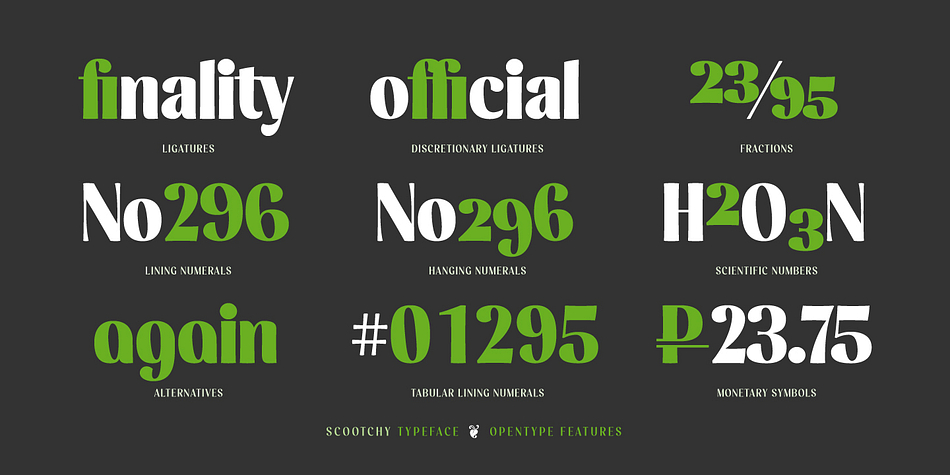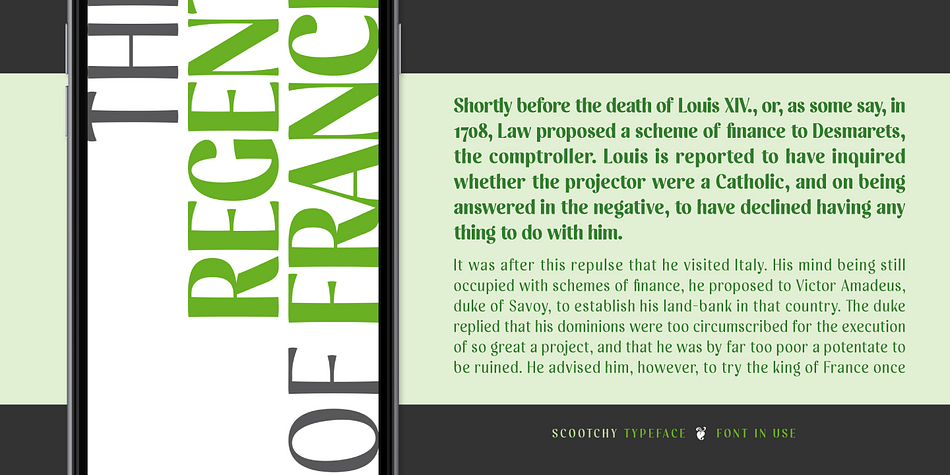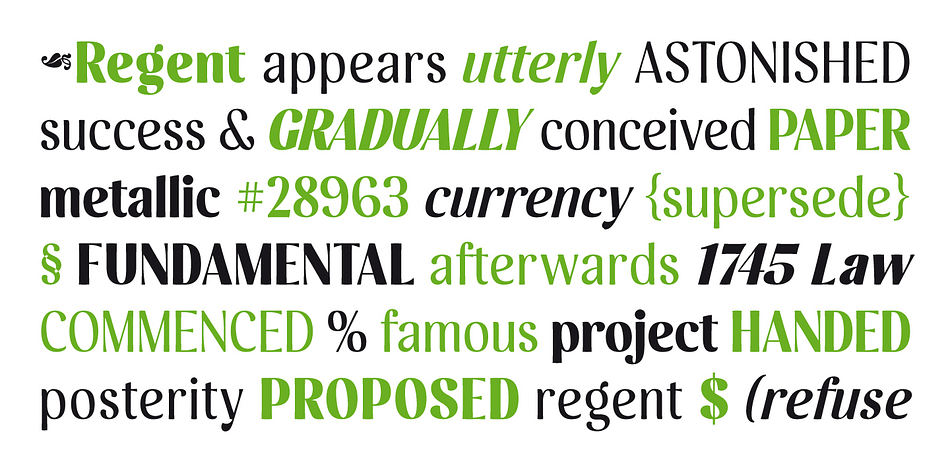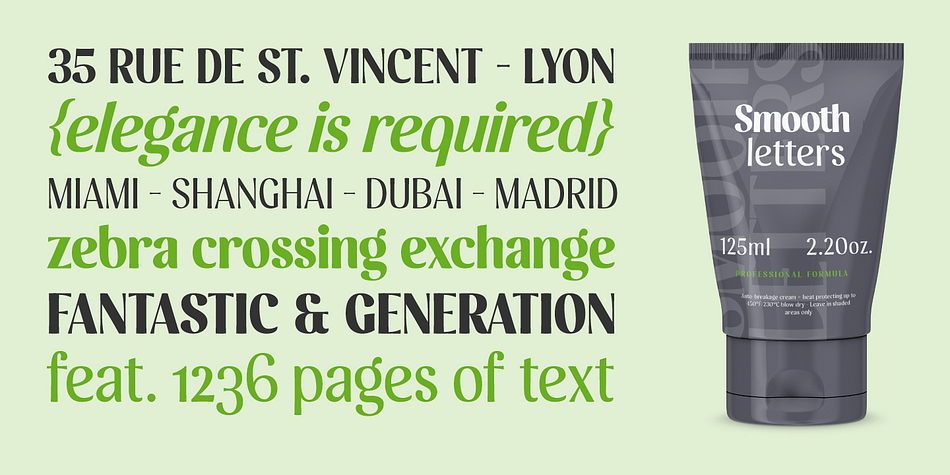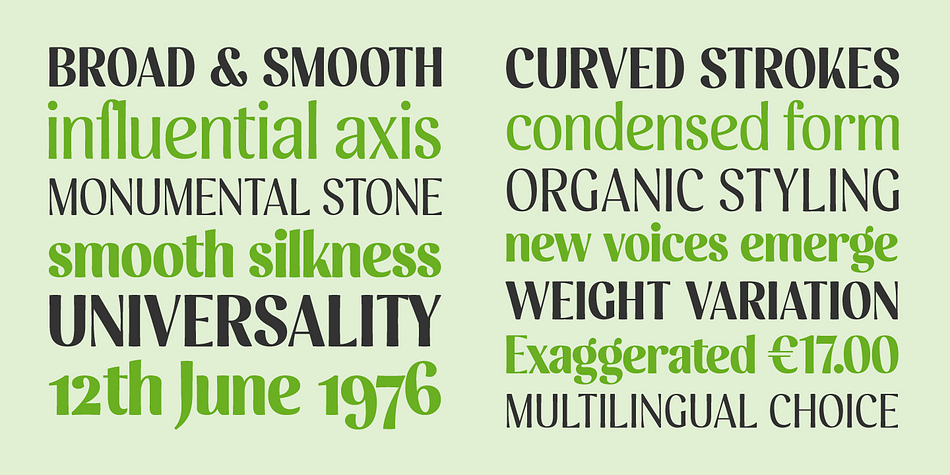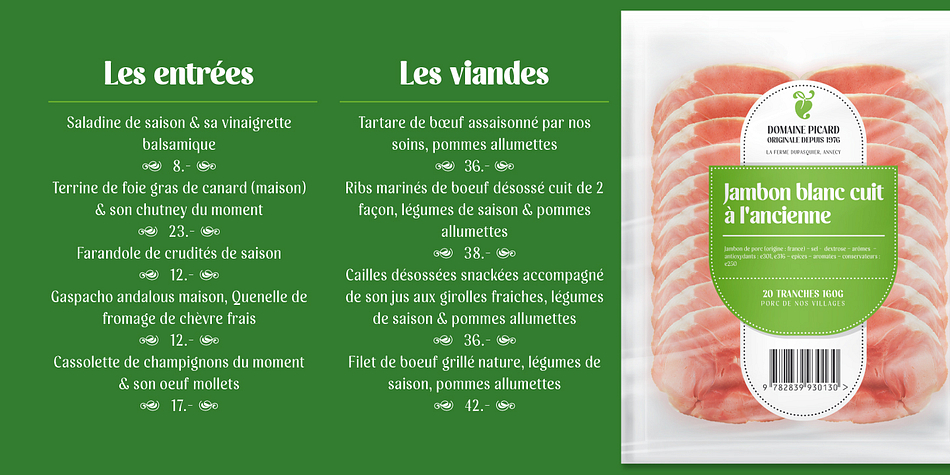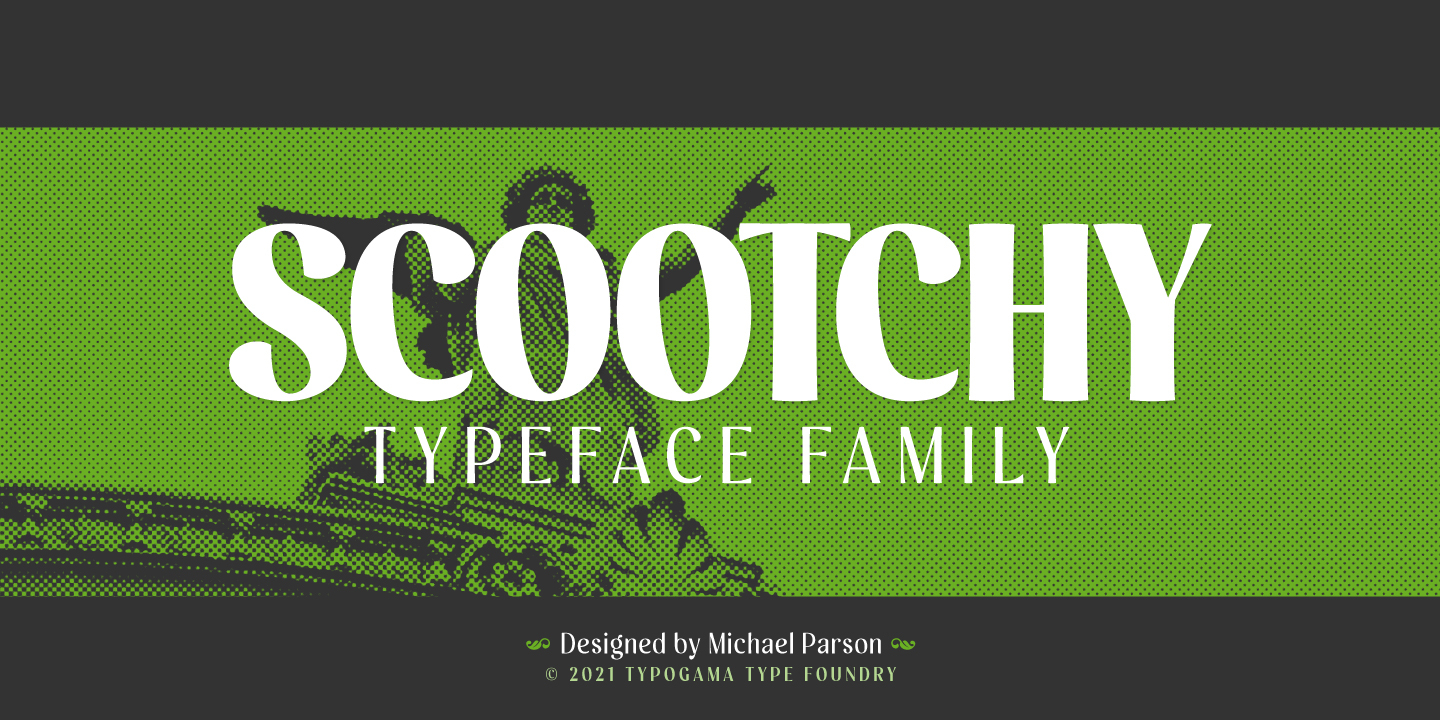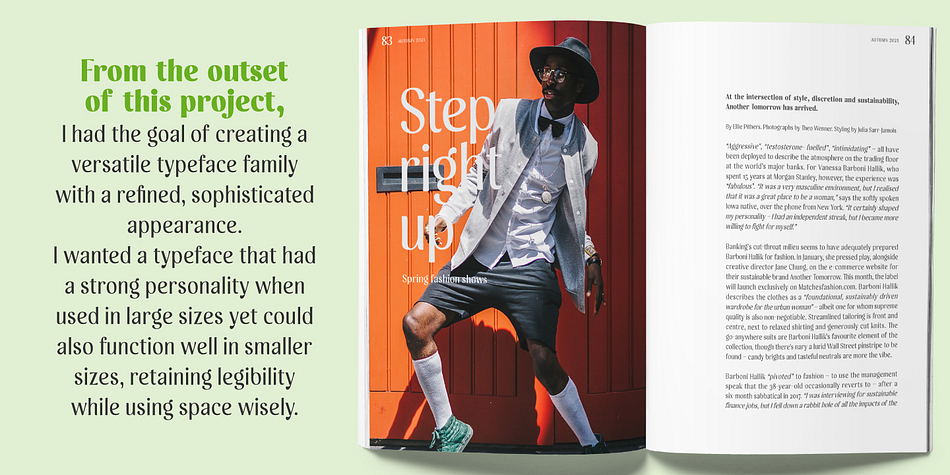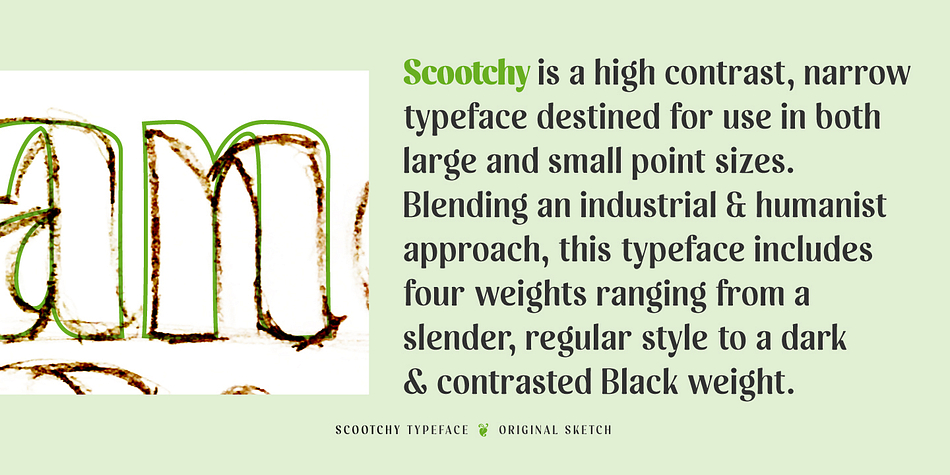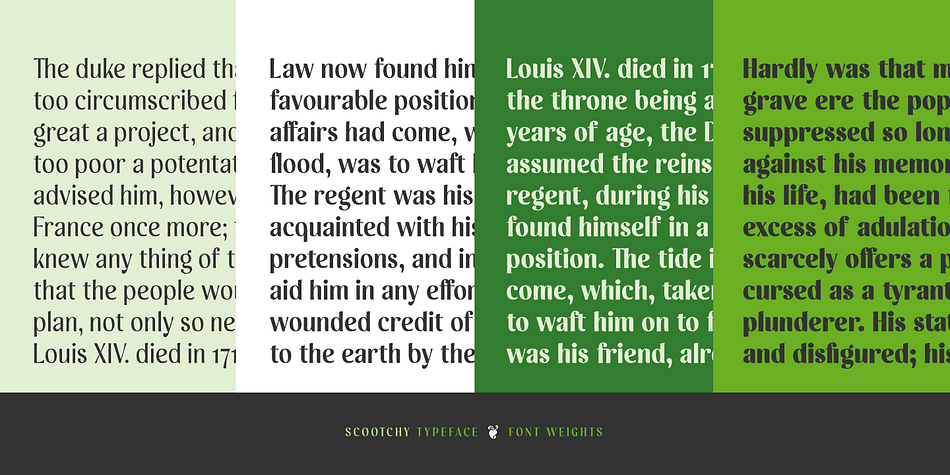
Designed by Michael Parson, Scootchy is a display sans font family. This typeface has nine styles and was published by Typogama.
Scootchy is a high contrast, narrow typeface destined for use in both large and small point sizes. Blending an industrial and humanist approach, this typeface includes four weights ranging from a slender, regular style to a dark and contrasted Black weight.
With an Extended Latin character set and a wide range of Opentype features, Scootchy aims to provide a versatile solution that can be applied to a wide range of layouts.